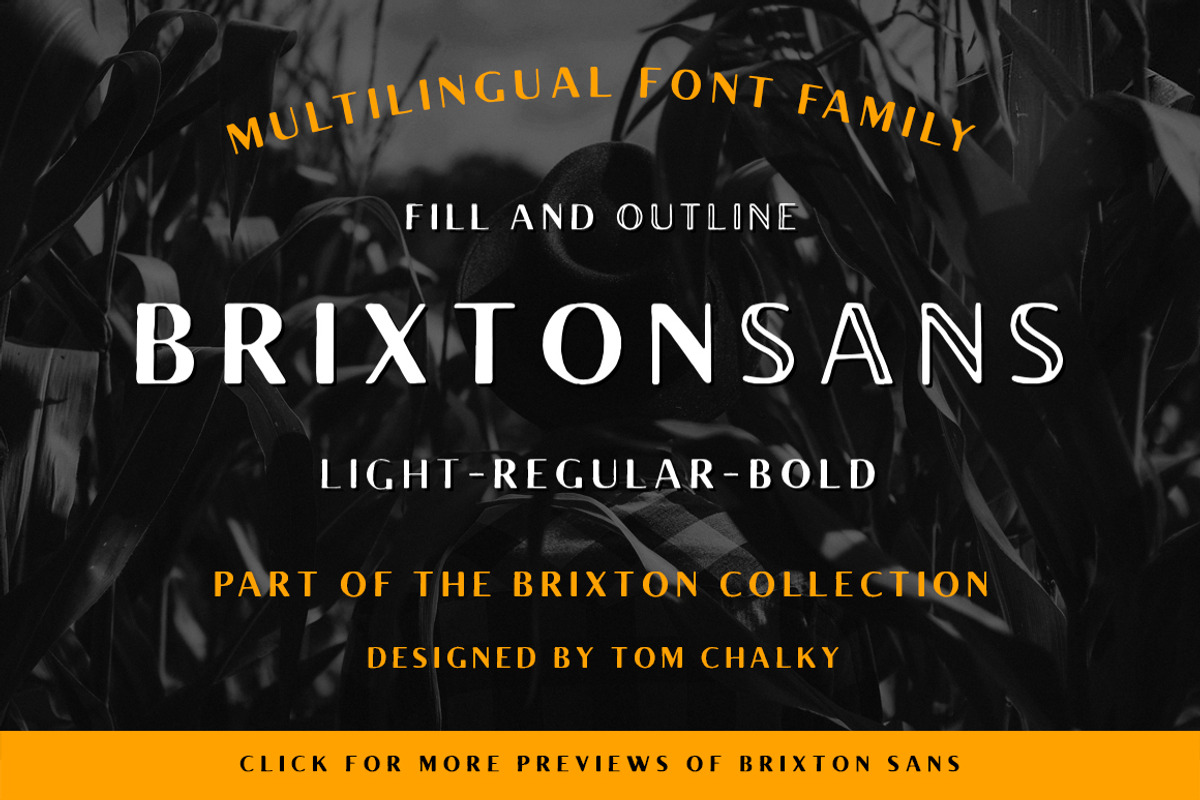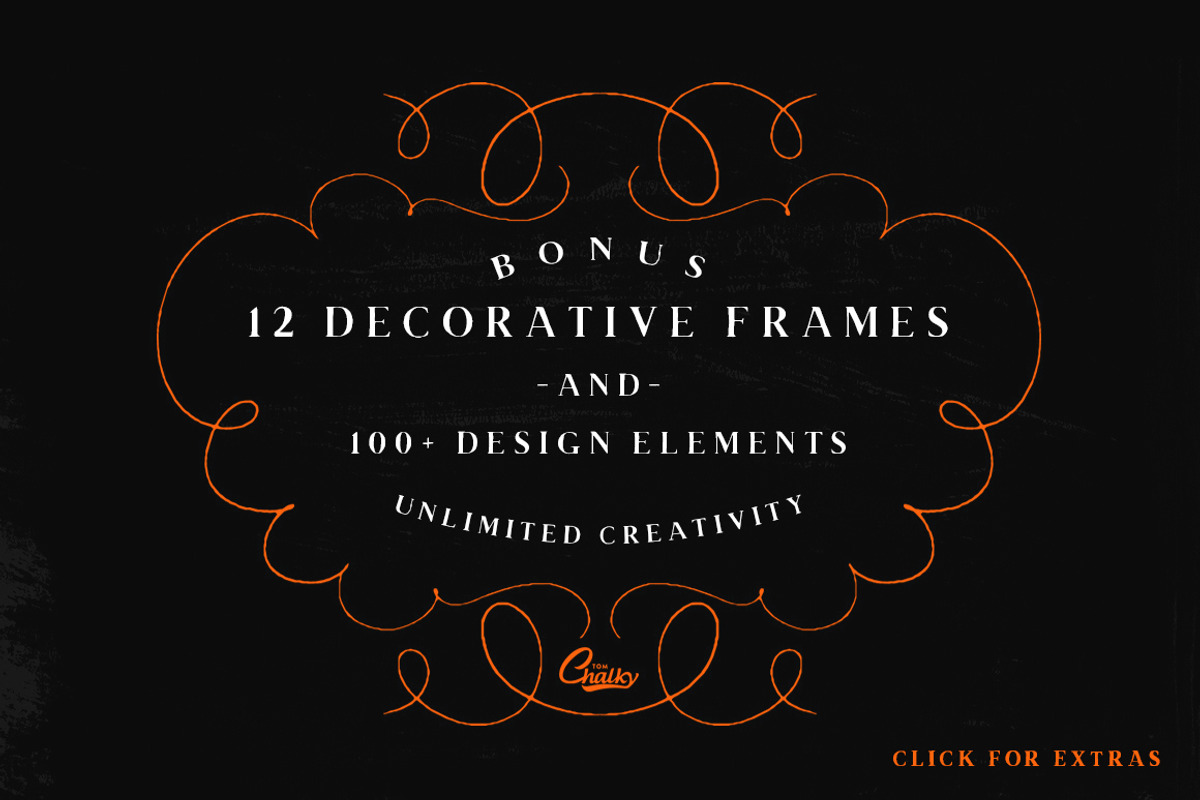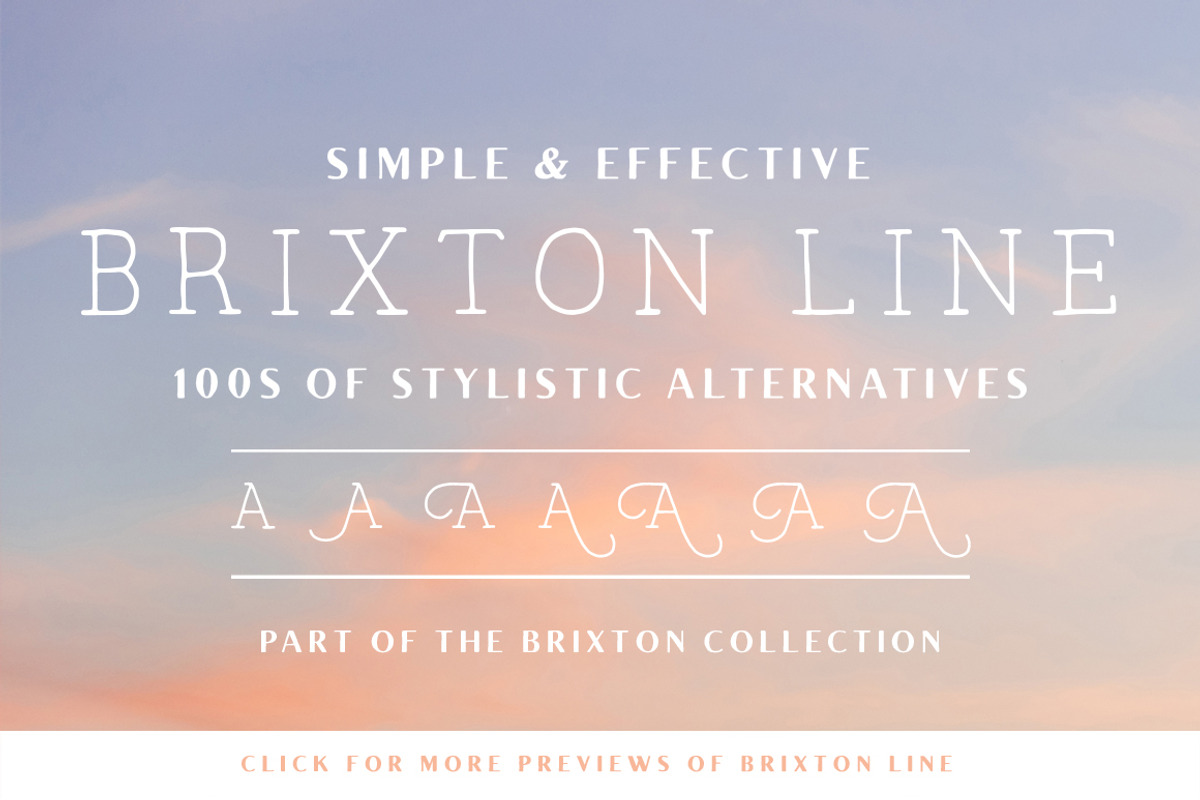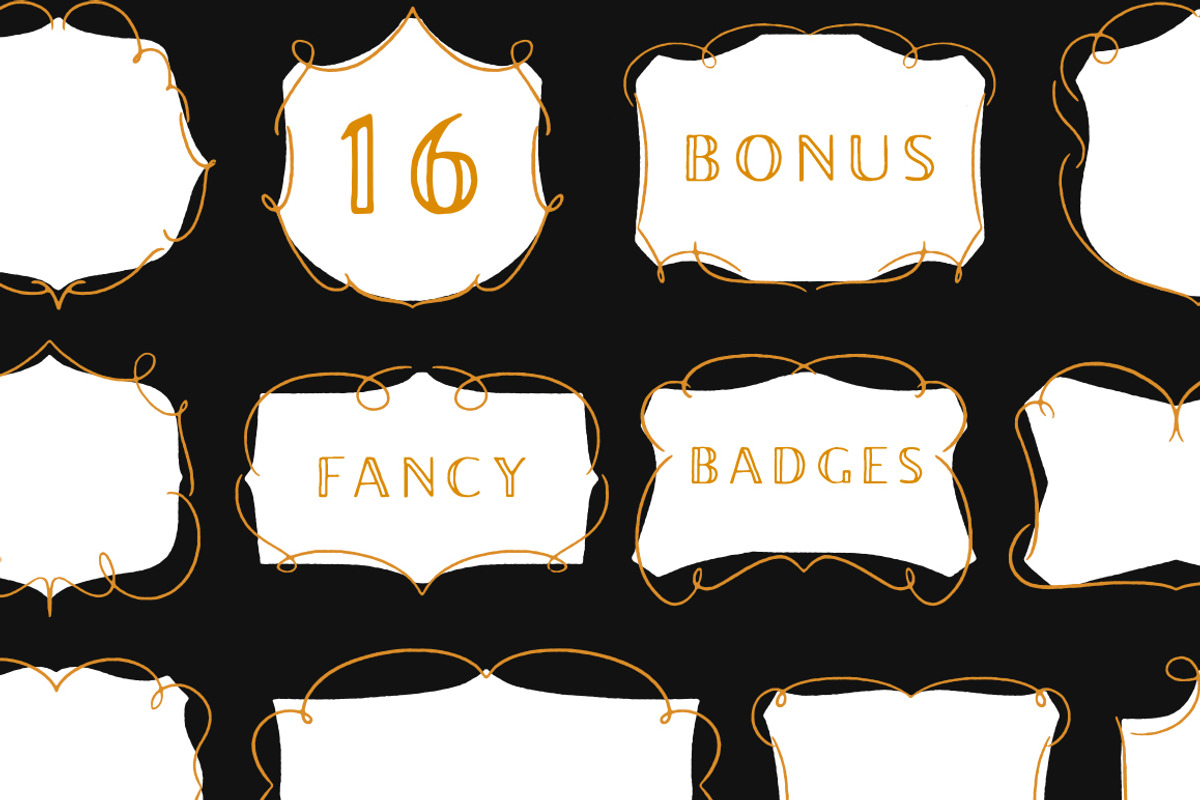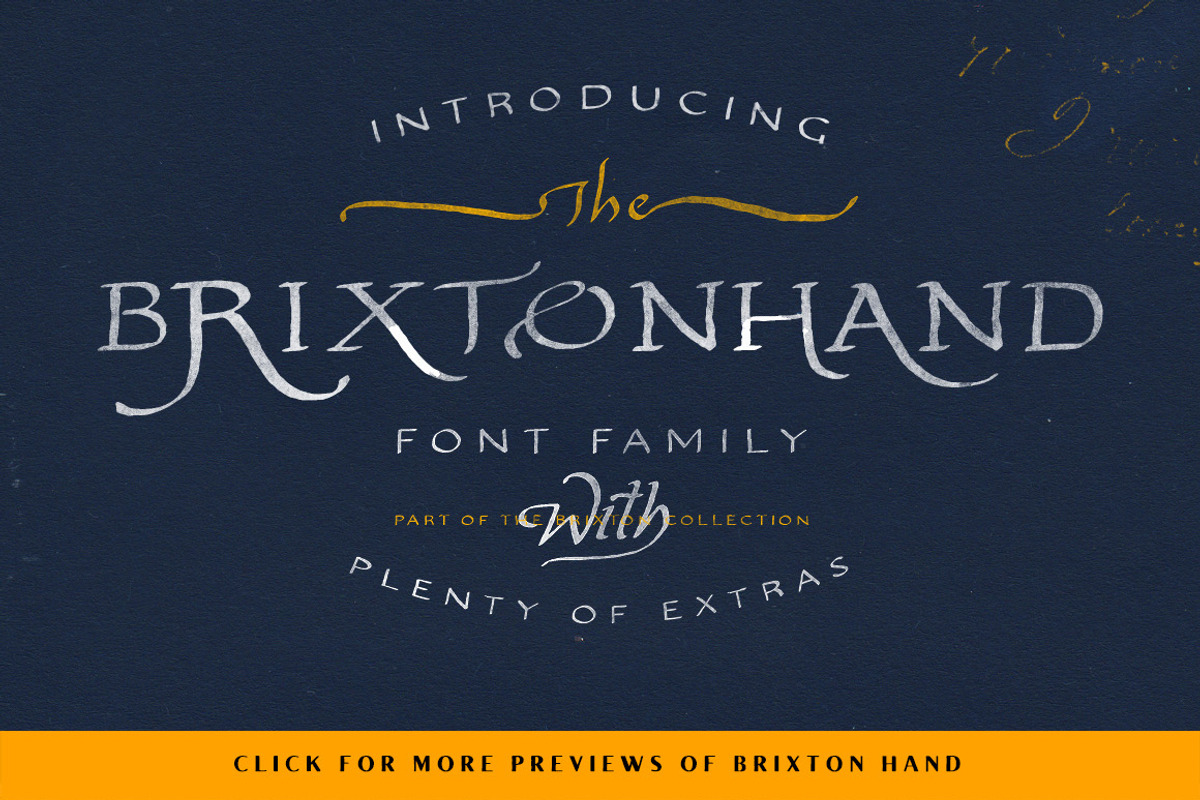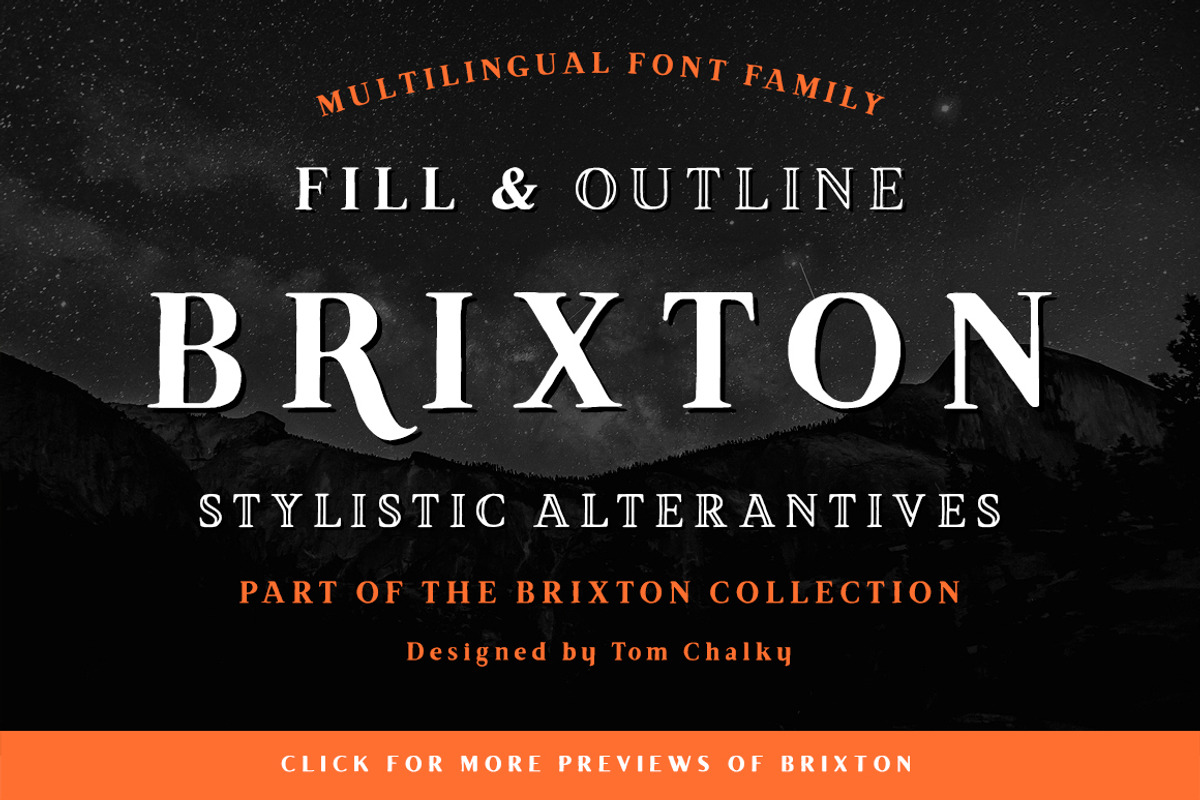
The Brixton Collection (16 Fonts)
The Brixton Collection (16 Fonts) by Tom Chalky is a font selected for branding, posters, packaging, typography.
- Also included are 12 vector decorative frames that complement the elegance of Brixton, alongside 100+ handcrafted swirls and curls.
- The Brixton Sans Family (6 fonts) - https://crmrkt.com/y2meb - The sans companion for the original Brixton family (above) that also includes
- Included with this download are 16 decorative shields and badges.
- By correctly utilizing the available stylistic alternatives, the included extras, and catchwords, the pair truly shines!
- 100's of Design Extras - Included with Brixton and Brixton Sans (read above for details) Multilingual - Each font in the Brixton collection